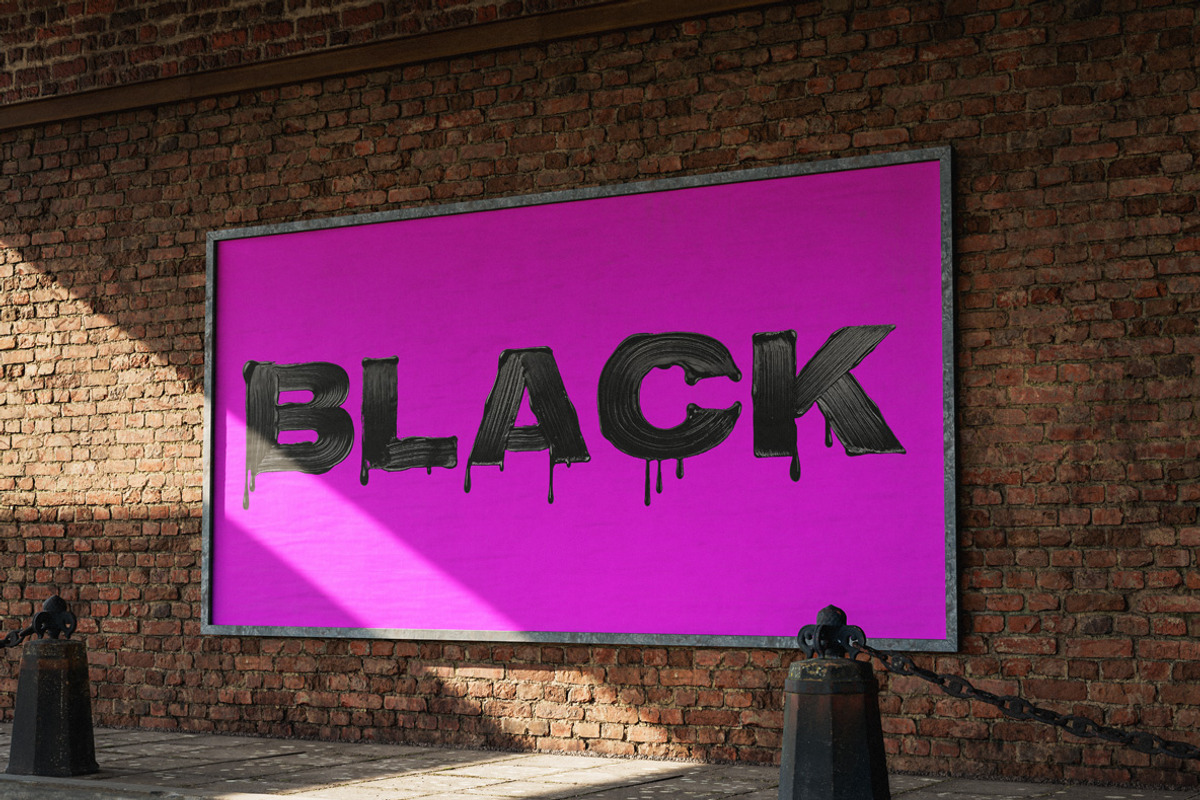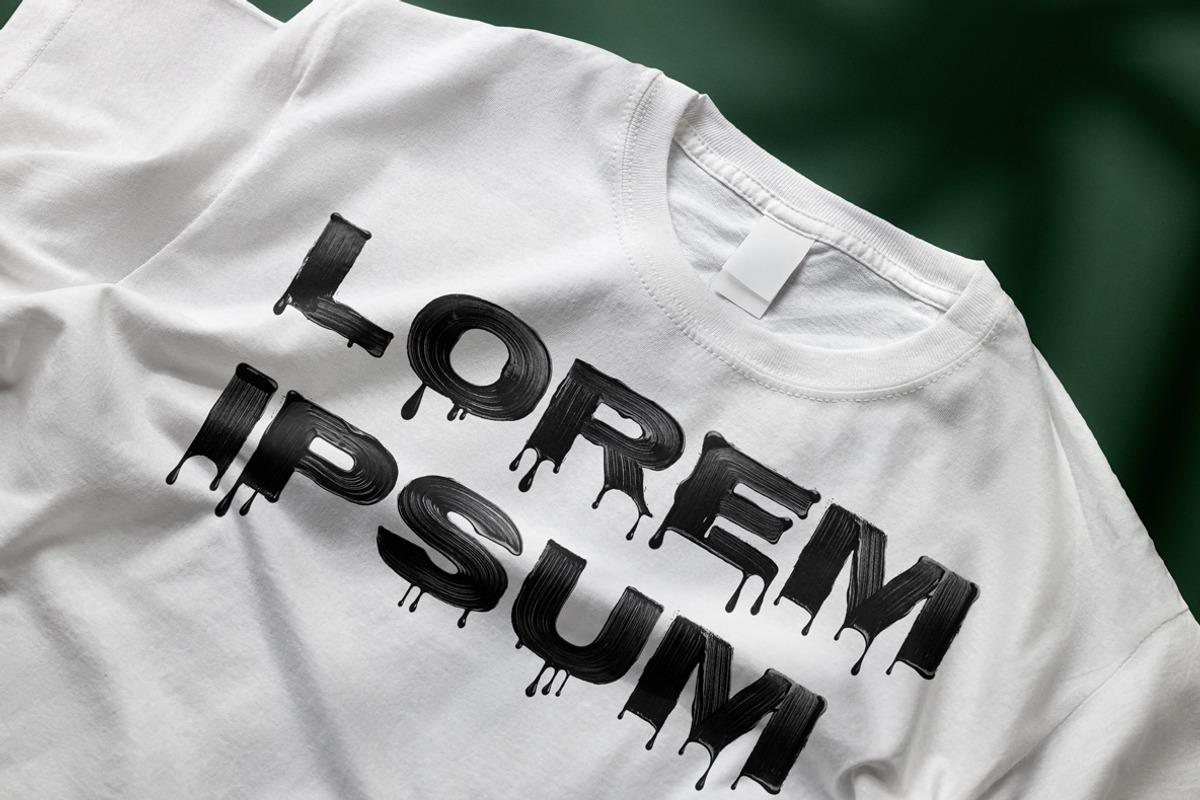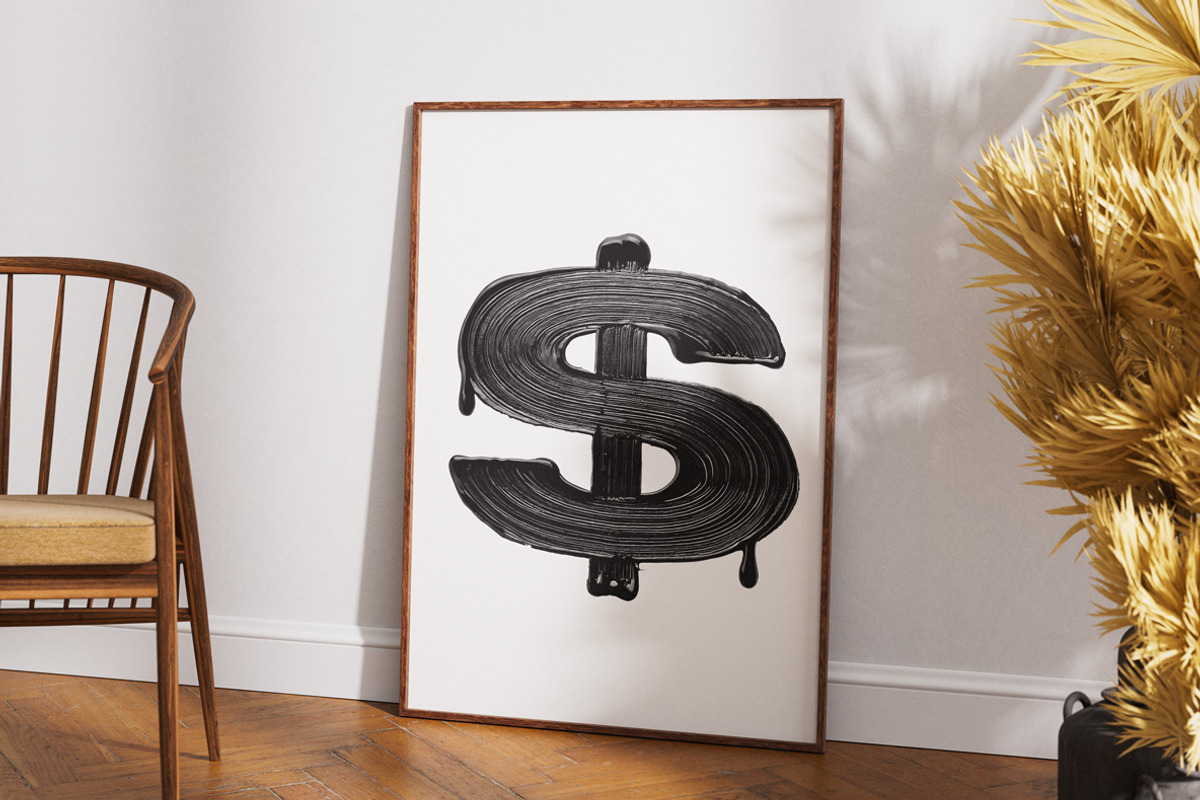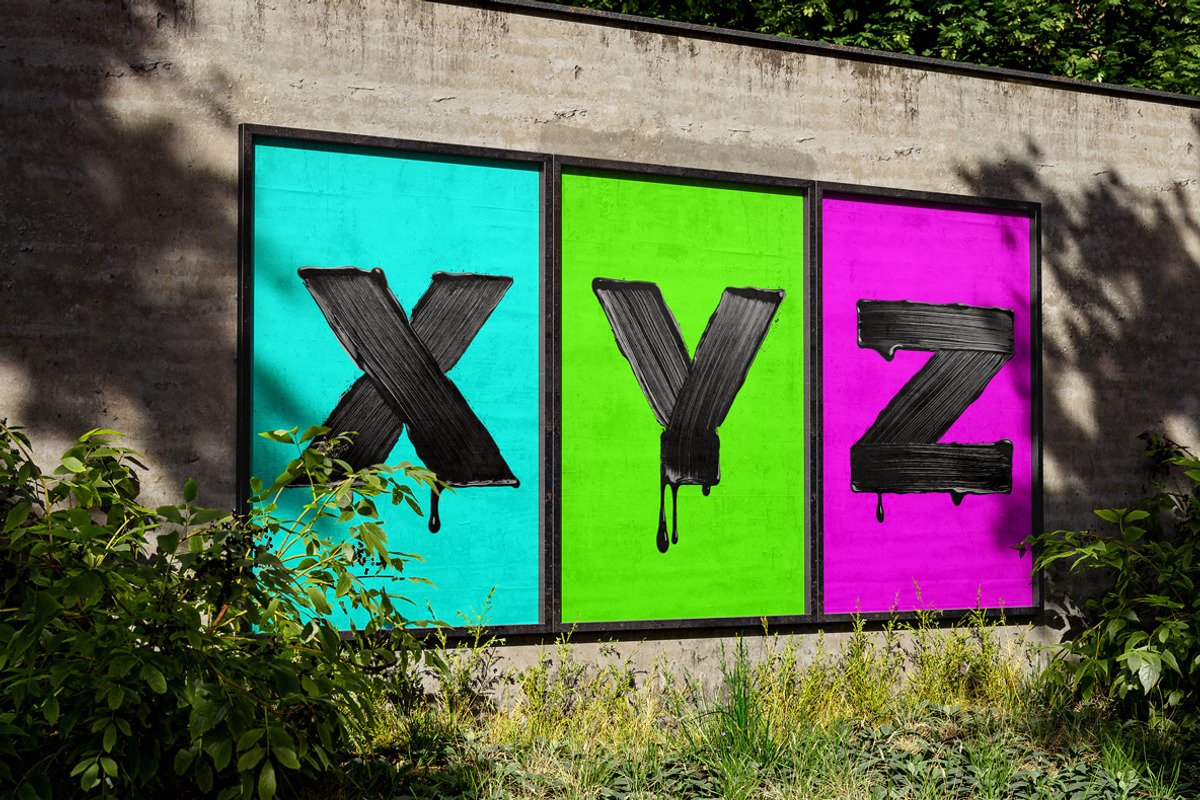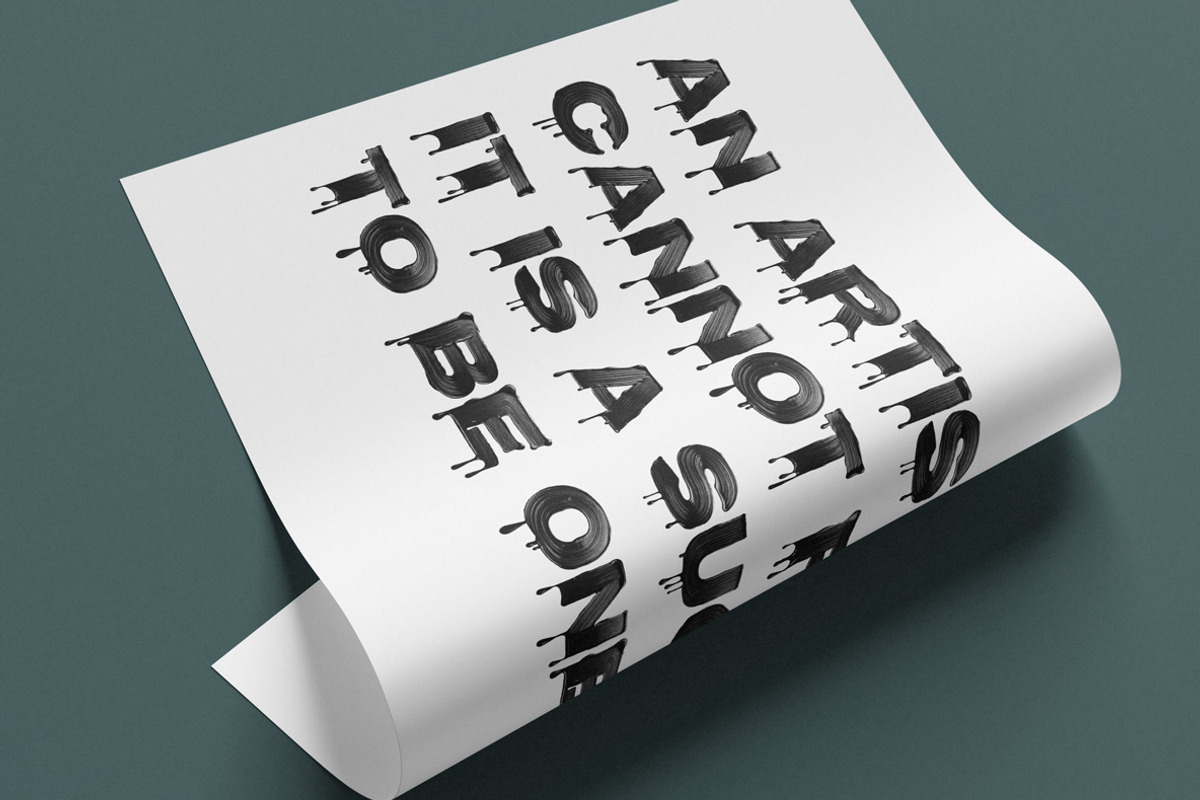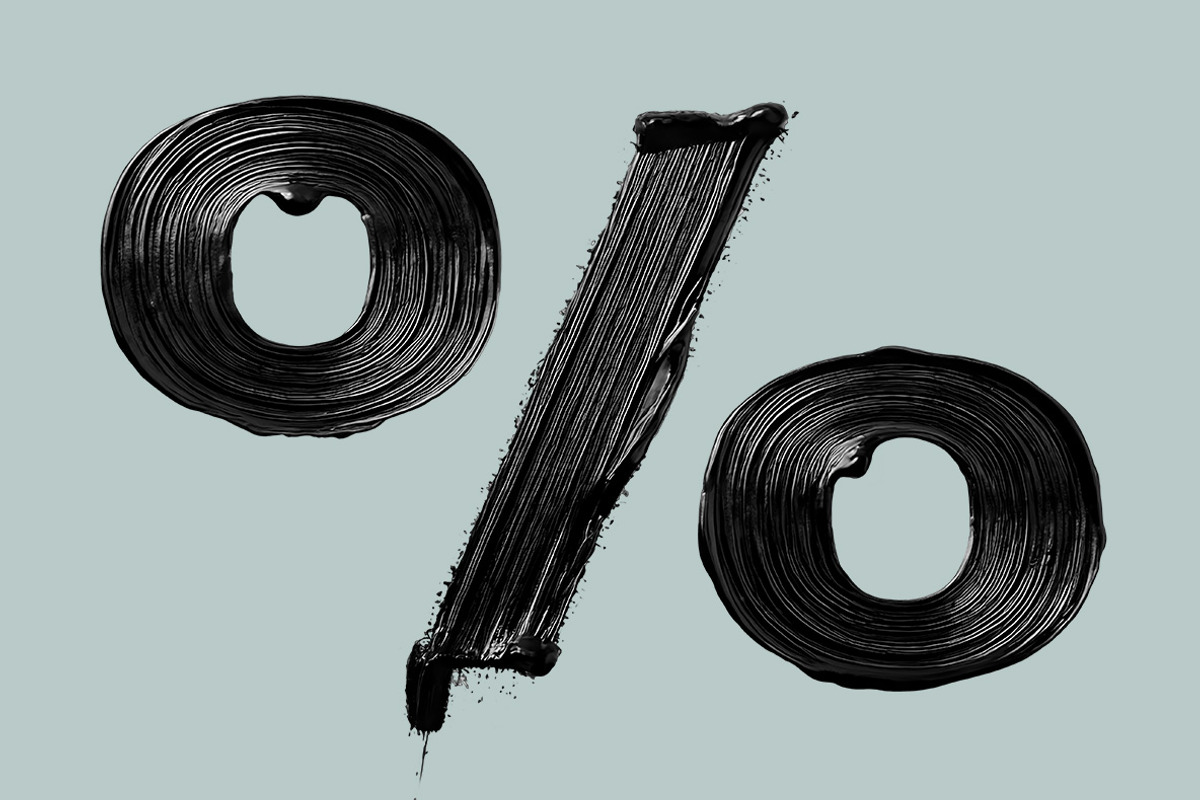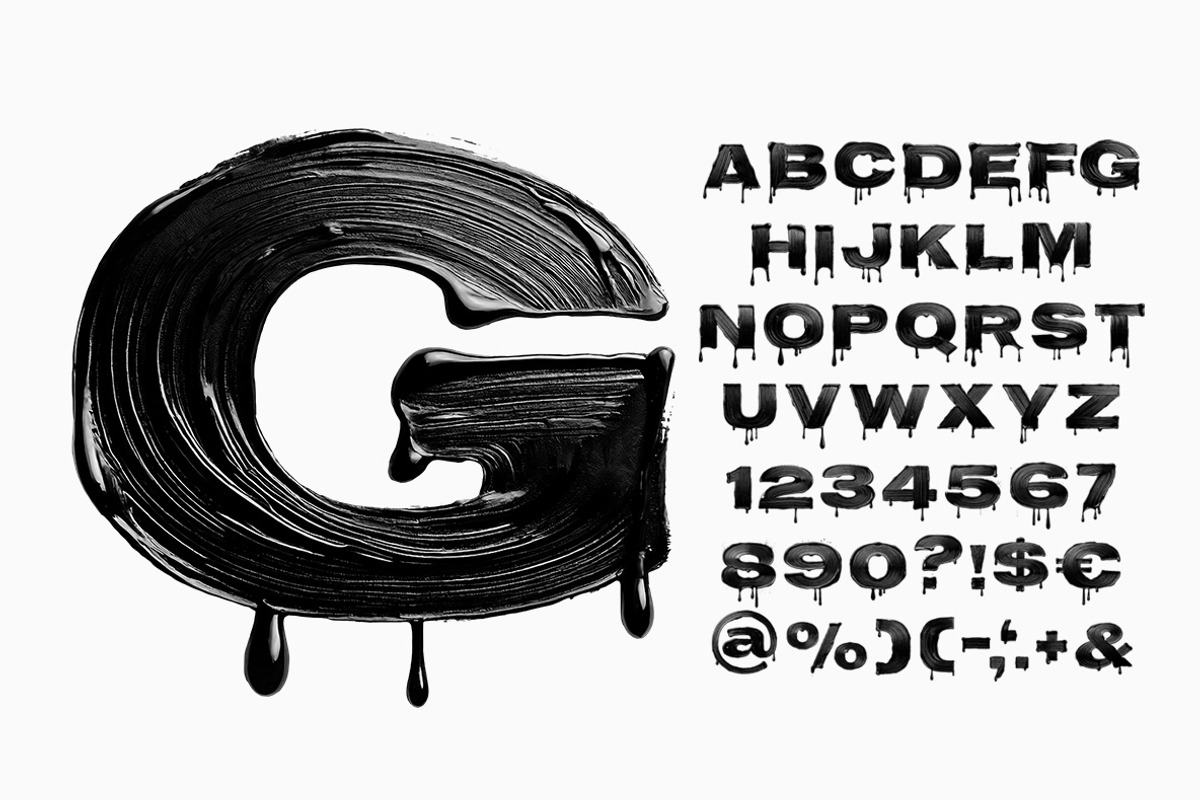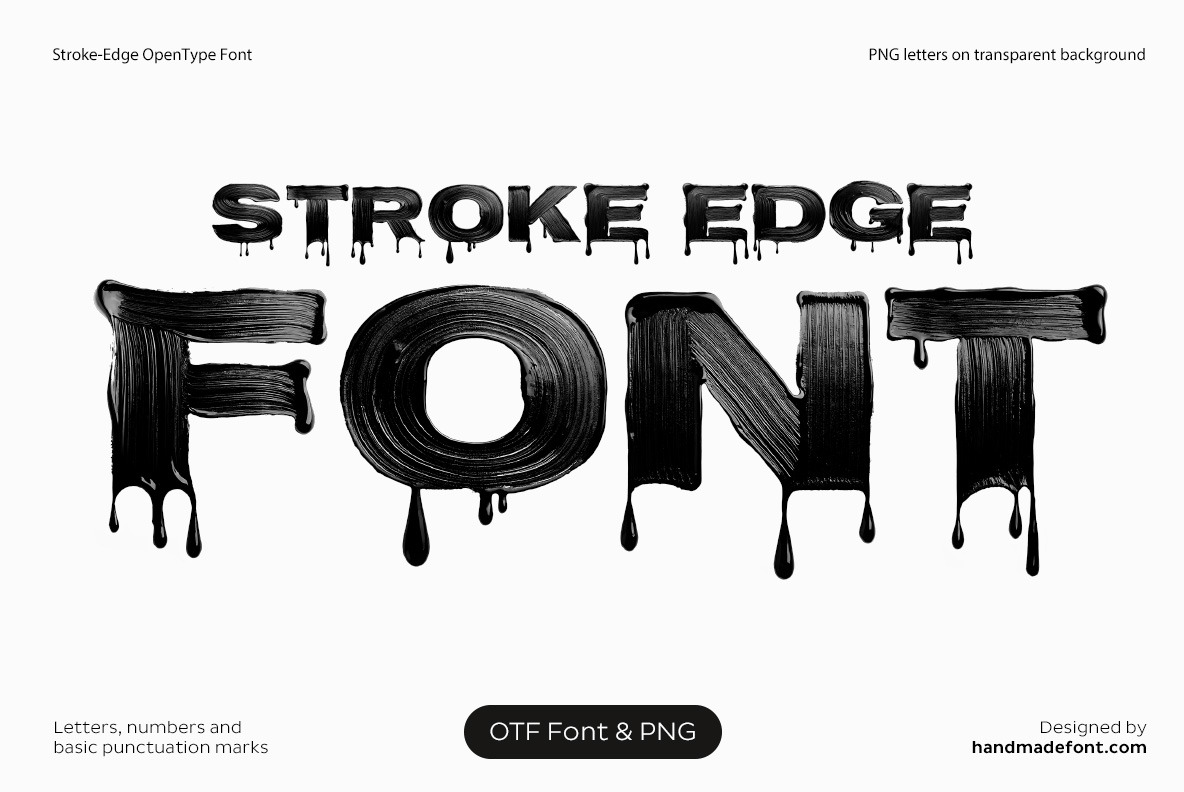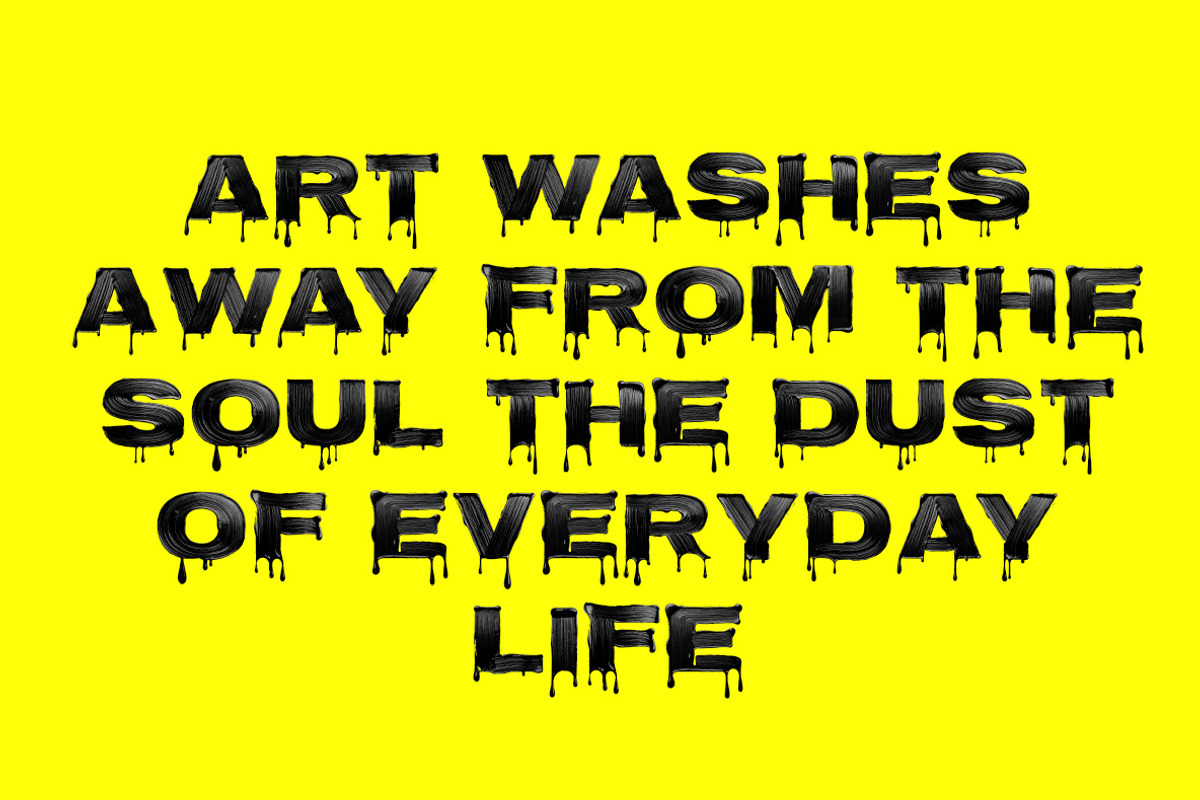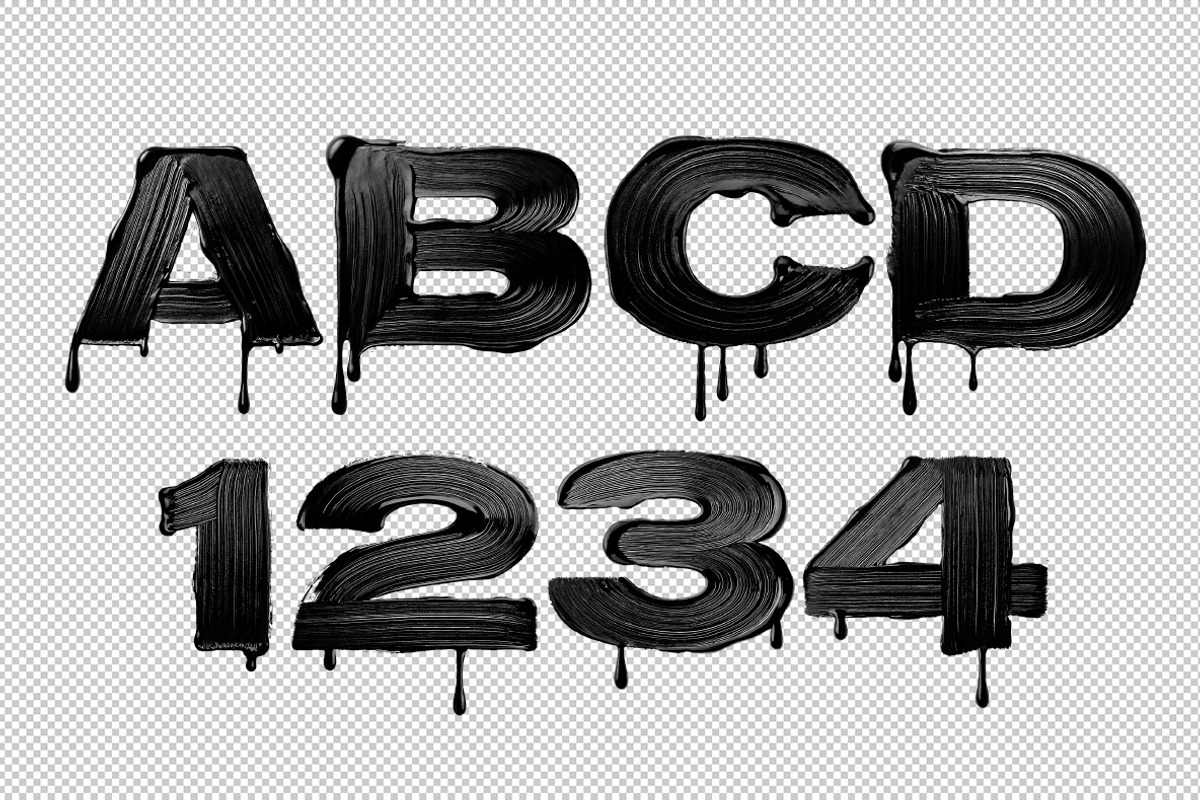
Stroke Edge Font
Stroke Edge Font is a bold and expressive typeface inspired by dynamic paint strokes. This brush stroke alphabet features black, textured strokes, creating a raw, artistic feel. Perfect for edgy designs, bold headlines, creative posters, and modern branding. Its hand-painted style brings an organic, authentic vibe, combining creativity with versatility. Ideal for projects needing a striking, artistic touch.
A high definition OpenType Font. Contains uppercase characters, numerals and basic punctuation. (Draw height roughly 800 pixels). All letters and glyphs that comprises this font you can see on the preview.
- Letters : A B C D E F G H I J K L M N O P Q R S T U V W X Y Z
- Numbers : 0 1 2 3 4 5 6 7 8 9
- Others : ! ? - . ' $ € % & # @